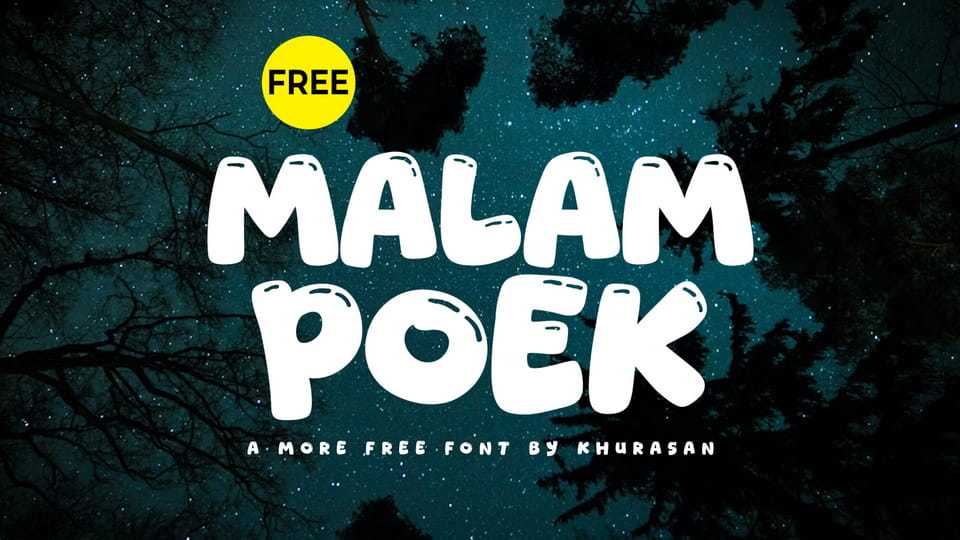
Download Malam Poek font, a playful display typeface with a handcrafted spirit and a touch of magic. Its bold rounded forms and charming irregular details create a whimsical personality that feels both fun and imaginative.